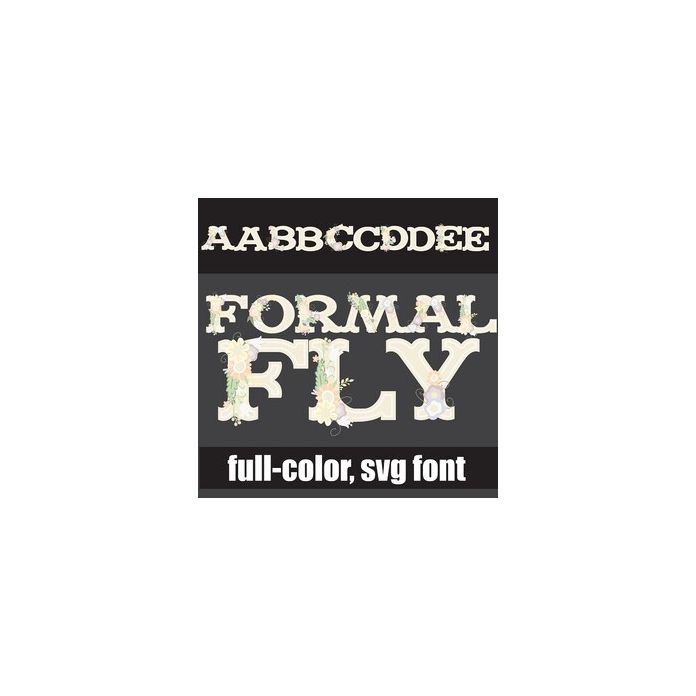
Formal Fly Color Font
This full-color font features pretty, light-colored flowers on serif lettering. There is an alt version of orange lettering you can access through your system or Silhouette's glyph map. This font works best for titles, displays, posters and more. Please note color fonts will show as black in non compatible programs. This font type is compatible with Silhouette Studio